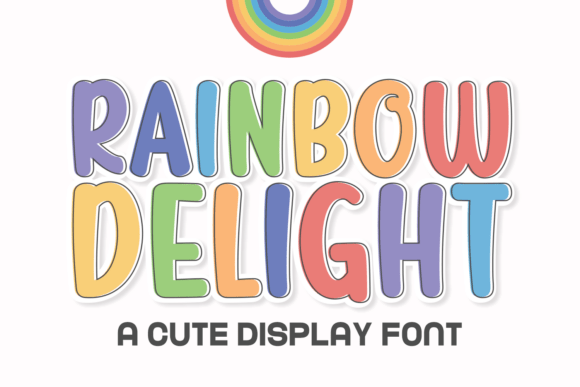
Rainbow Delight: A Handwritten Display Font That Feels Like Joy in Type
There I was—mid-morning light spilling across my desk, a half-printed batch of lavender-scented candle labels scattered beside my laptop—when I opened Rainbow Delight for the first time. Not as a theoretical font, but as a real tool: something to make “Calming Lavender” feel soft and sincere, not stiff or generic. And just like that, the name clicked—not because it’s flashy, but because Rainbow Delight truly delivers: a handwritten display font with springy rhythm, gentle bounce, and quiet confidence.
This isn’t a font built for paragraphs or body text. Rainbow Delight is pure display magic—designed for moments where personality matters most. Its letters flow like ink drawn with care: rounded terminals, subtle variations in stroke weight, and an organic looseness that feels handmade, not algorithmic. It’s cheerful without being cutesy, playful without sacrificing legibility, and whimsical without drifting into illegibility on small labels or printed tags.
I tested it across real maker use cases—and it held up beautifully. On 1.5-inch kraft paper candle labels? Crisp and warm, especially when printed at 12–14pt with generous letter spacing. On a set of printable birthday cards? Instant uplift—“Happy Birthday!” looked like it had been written just for the recipient. For a farmhouse-style welcome sign (“You’re Home”), it softened the rustic wood grain instead of fighting it. And on digital planner pages? Paired with a clean sans serif for headers and notes, Rainbow Delight became the friendly voice guiding each week.
What makes Rainbow Delight especially useful for makers is how thoughtfully it balances charm with practicality. It’s not overly decorative—no excessive swashes or distracting ligatures that complicate cutting machine files. The standard OTF and TTF files install smoothly in Cricut Design Space, Silhouette Studio, and Canva. When I converted a “Sweet & Simple” tag design to SVG for vinyl cutting, the curves stayed smooth, the joins stayed clean, and the cut lines behaved exactly as expected—even at 0.75 inches tall.
For packaging and boutique tags, Rainbow Delight shines brightest on short phrases: shop names, scent names, seasonal greetings (“Spring Has Sprung”), or affectionate descriptors (“Hand-Poured • Small Batch”). It’s ideal for product labels where you want warmth and approachability—think apothecary jars, tea tins, bath salt bags, or greeting card envelopes. Just avoid stacking more than two lines of Rainbow Delight at tiny sizes; for fine print (ingredients, copyright, or disclaimers), always pair it with a highly legible sans serif like Montserrat or Open Sans.
Font pairing is where Rainbow Delight really sings. Try it with a neutral, airy sans serif for contrast and balance—especially in wedding stationery or printable wall art. A light-weight sans works beautifully for “RSVP by May 15” beneath a Rainbow Delight “Mr. & Mrs.” header. For a bolder contrast, pair it with a structured serif like Playfair Display on invitation suites—it creates hierarchy without competition. And if you're layering fonts in digital templates (like editable Canva planners or Etsy listing mockups), Rainbow Delight makes perfect sense as the “hero” typeface—the one customers remember first.
I also used it for seasonal digital downloads: a set of printable Easter egg labels, a summer picnic menu board, and a cozy “Hot Cocoa Mix” gift tag bundle. In every case, Rainbow Delight added instant handmade appeal—without requiring illustration or extra design layers. Its natural rhythm invites the eye to linger, which helps customers connect emotionally before they even read the full description.
Readability tips I learned along the way:
- For sticker sheets under 1 inch wide, stick to single words or very short phrases (“Yes!”, “Hello”, “Joy”) in 16–18pt size.
- On matte-finish mugs or cotton tote bags, Rainbow Delight holds its shape best when vectorized and output at high resolution—no pixelation, even after screen printing.
- In listing images or mockups, increase contrast slightly (not saturation) so the delicate strokes stand out against busy backgrounds.
- When testing for physical merchandise, always print a sample first—some inkjet printers soften the fine details, while laser printers preserve them crisply.
Rainbow Delight doesn’t shout. It smiles. It leans in. It makes “Handmade With Love” feel genuine—not like a tagline, but like a promise. That’s why it works so well across such a wide range of creative outputs: from elegant wedding welcome boards to playful sticker packs, from minimalist planner headers to bold boutique packaging. It adds warmth without clutter, distinction without distraction, and personality without pretense.
If your shop thrives on authenticity—if your customers choose you because your work feels human, intentional, and kind—then Rainbow Delight fits right in. It’s not just another handwritten font. It’s the typographic equivalent of a thoughtful note tucked inside a package: small, sincere, and impossible to forget.